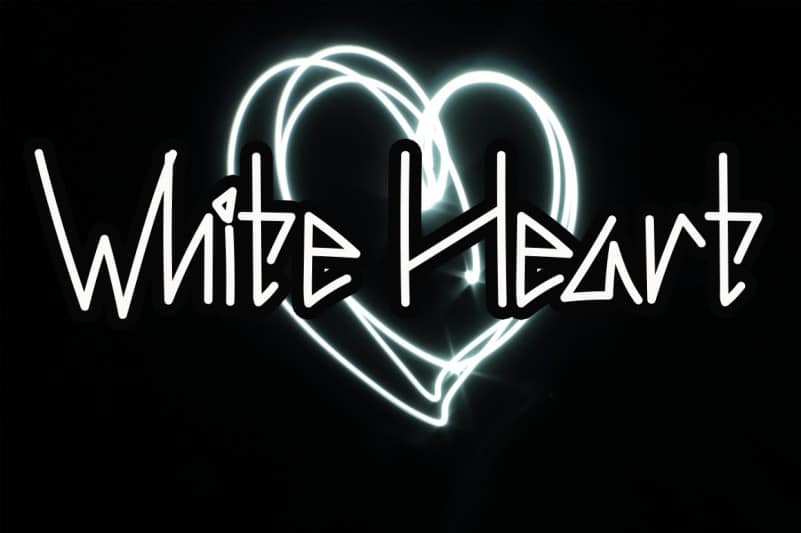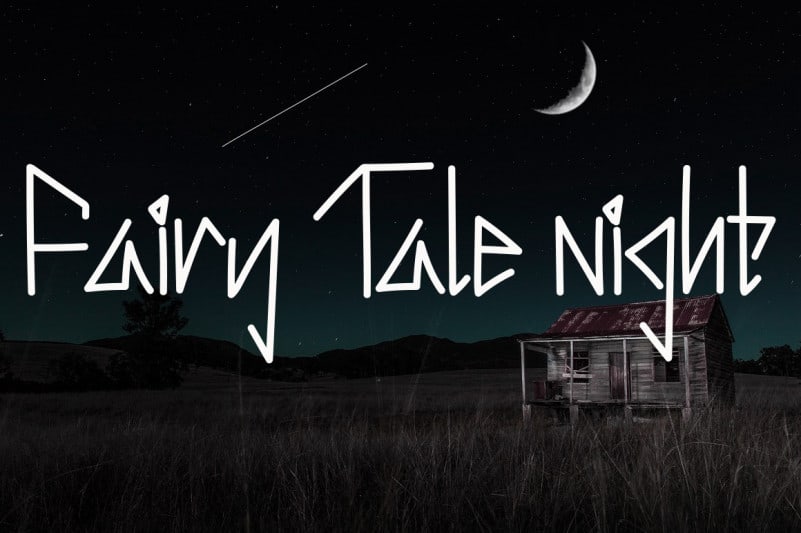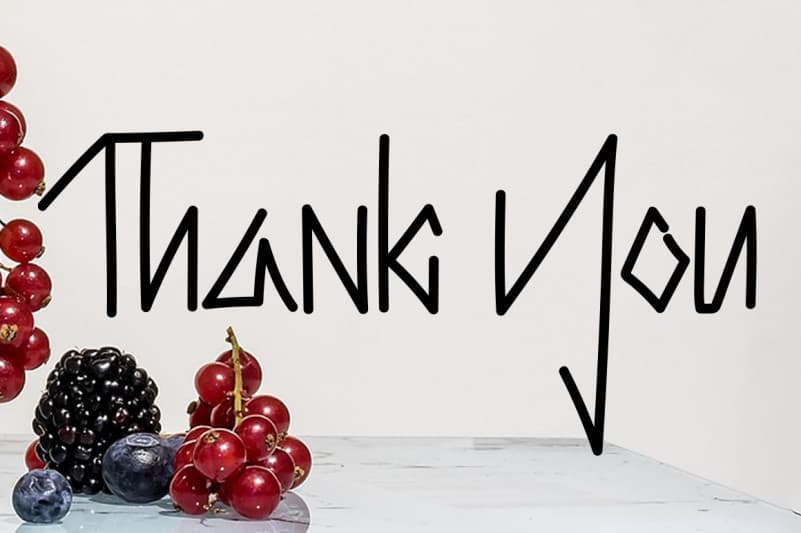
Valentine’s Mission Display Font
Valentine’s Mission Display Font is a cool and incredibly trendy display font. Whether you’re using it for crafting, digital designing, presentations or greeting cards making, it’s perfect!
valentine’s mission Display Font is a very talented product for you to use,
Latest letters that can be used for various products, invitations, wall hangings, weddings, and more.